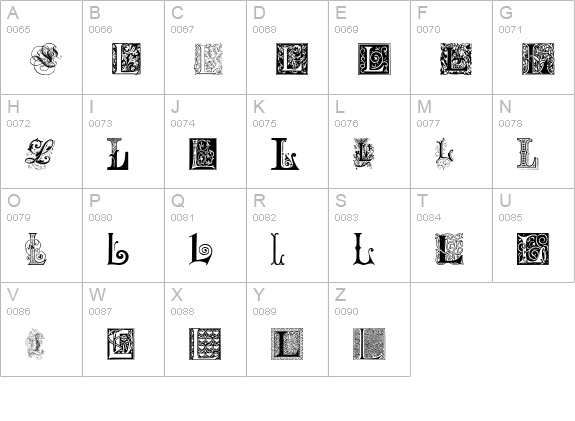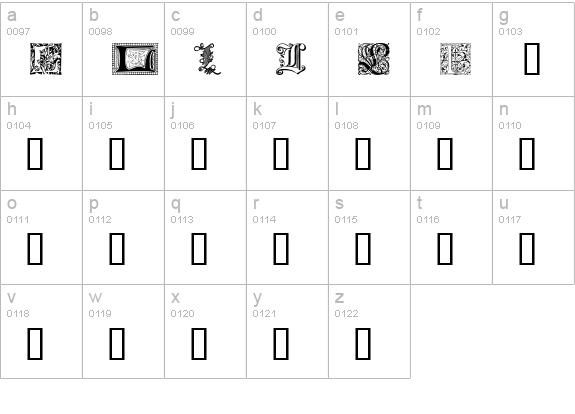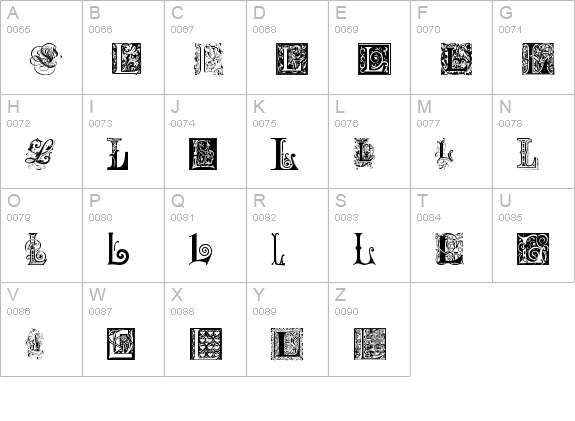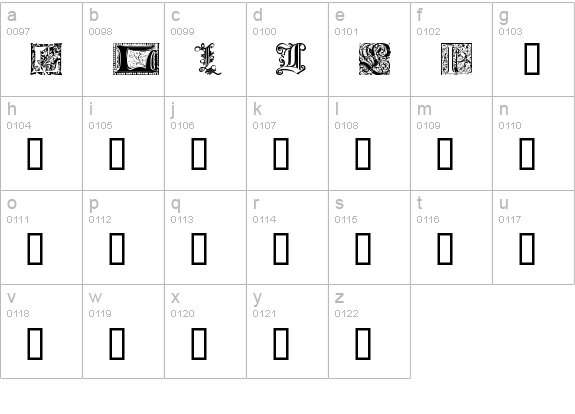
Ornamental Initials L font is a sophisticated and elegant typeface that exudes a sense of luxury and exclusivity. With its intricate details and ornate design, this font is perfect for adding a touch of glamour to your projects. The ornamental initials featured in this font are beautifully crafted, making them ideal for use in invitations, stationery, and other designs where a touch of sophistication is desired. The Ornamental Initials L font is not only visually stunning but also versatile, as it can be paired with a variety of other typefaces to create unique and eye-catching designs. Whether you're working on a wedding invitation, a branding project, or simply want to add a touch of elegance to your designs, this font is sure to impress. Best of all, Ornamental Initials L font is available for free download at FontsMarket.com, making it easily accessible to anyone looking to elevate their designs with a touch of luxury. Download this font today and add a touch of sophistication to your projects!